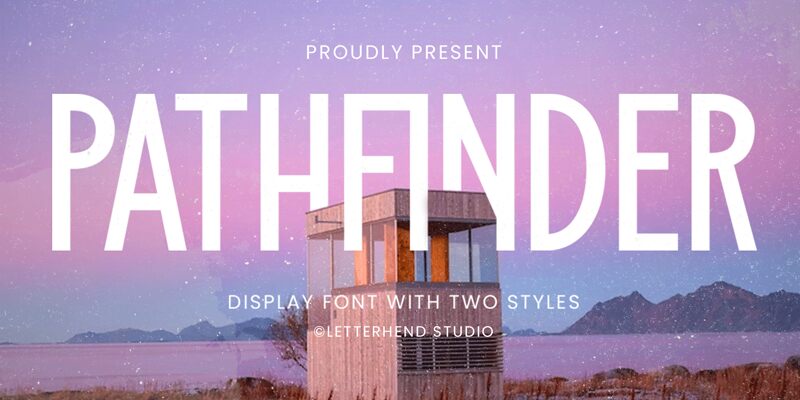
Pathfinder font by Letterhend Studio is a geometric and clean sans serif typeface. The structured and industrial qualities appeal to lovers of modern condensed fonts. Suitable for various forms of body text, Pathfinder promises a smooth reading experience that engages different kinds of audiences.
Use Pathfinder in advertisements, magazines, album/movie covers, signage, web/app design interfaces, presentations, merchandise designs like T-shirts and hoodies, product/packaging designs for toiletries/ cosmetics and others. As this no-nonsense font is free you can download it today to use on all the above plus more!